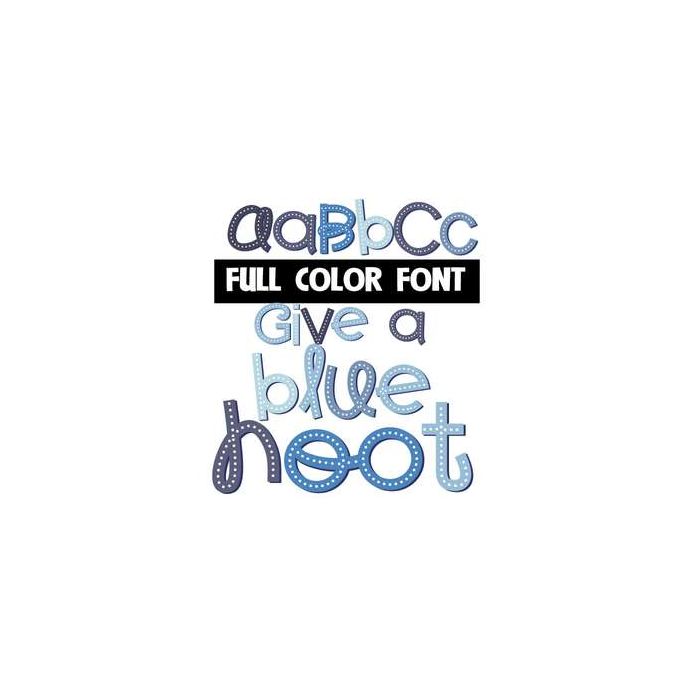
This full-color font features different shades of blue topped off with white dots. This font works best for titles, displays, posters and more. Please note color fonts will show as black in non compatible programs. This font type is compatible with Silhouette Studio.